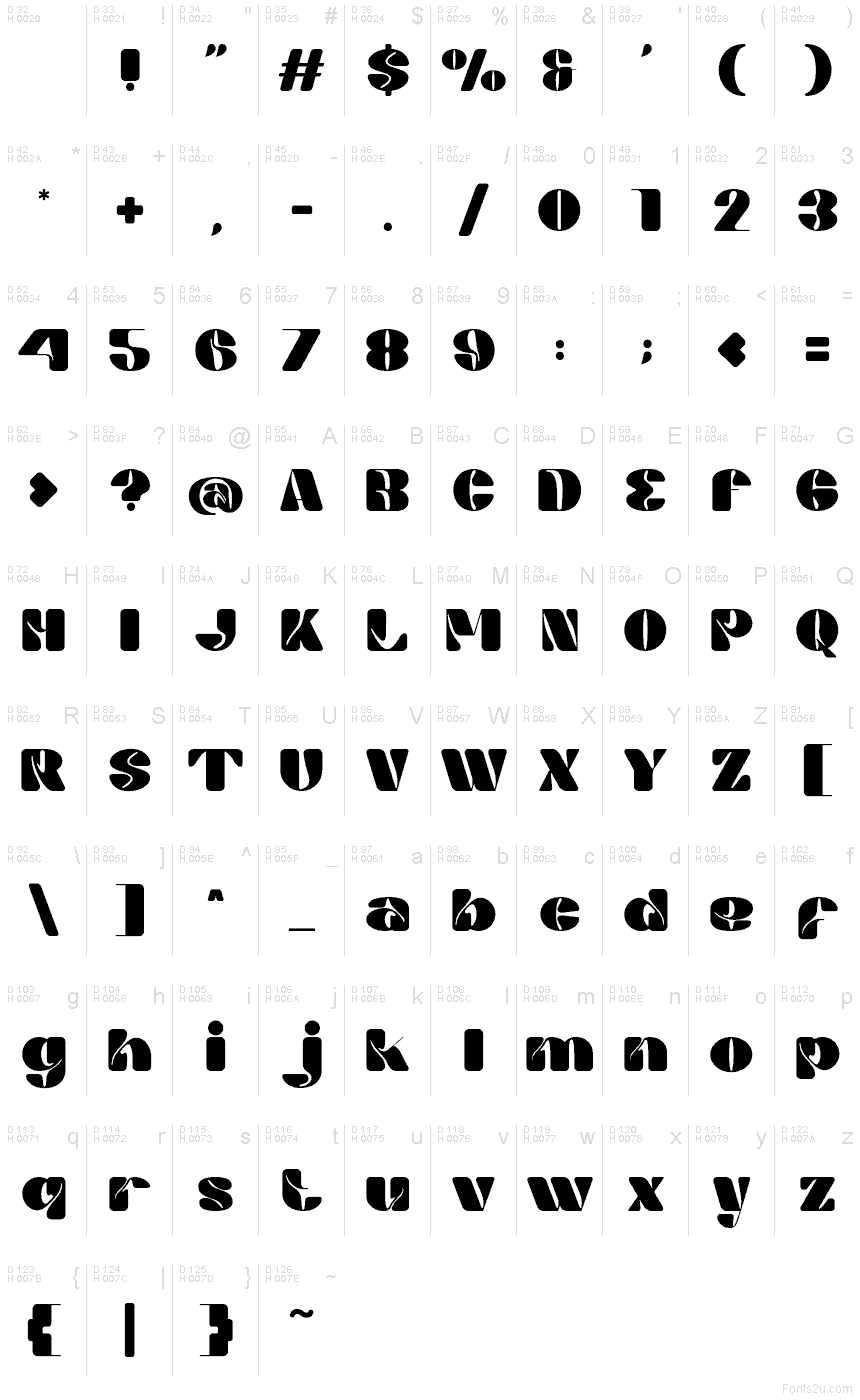
Malow Display
Malow Display font by PutraCetol Studio is a free artistic display font with an elegant and delicate style. It features fluent money lines that provide a pleasant visual flow that’s highlighted by special small strokes and rounded shapes throughout the letters.